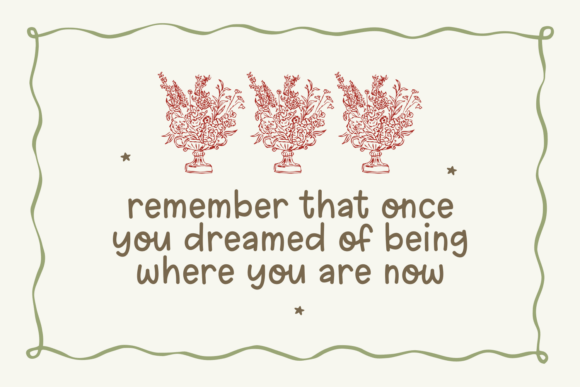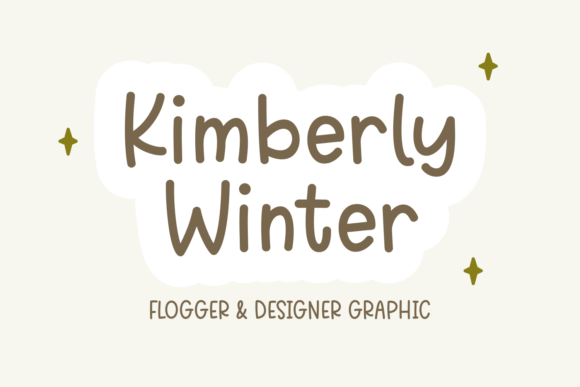
Saturday Honeymoon Font
Saturday Honeymoon is a simple and lovely handwritten font that brings a warm and cheerful touch to your designs. Its rounded shapes and smooth strokes make it perfect for invitations, greeting cards, quotes, logos, and branding projects. With a cozy handmade feel, this font adds charm and personality to any creative work. Ideal for both digital and print use!